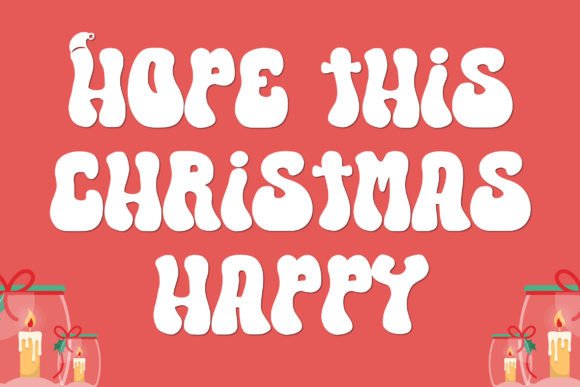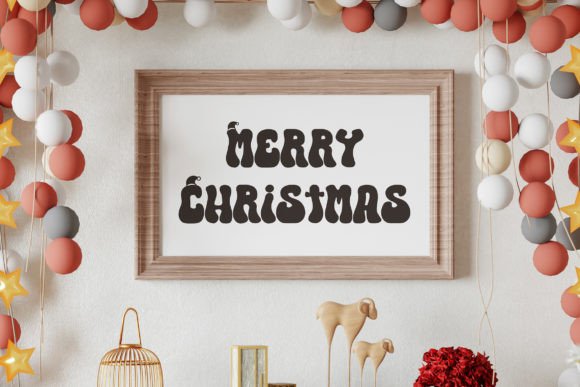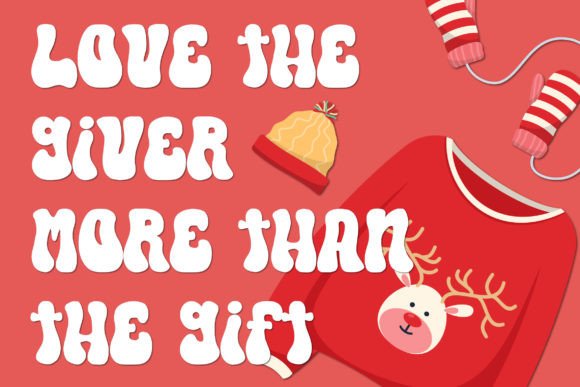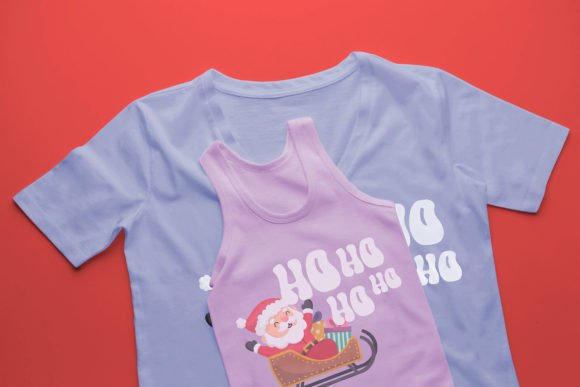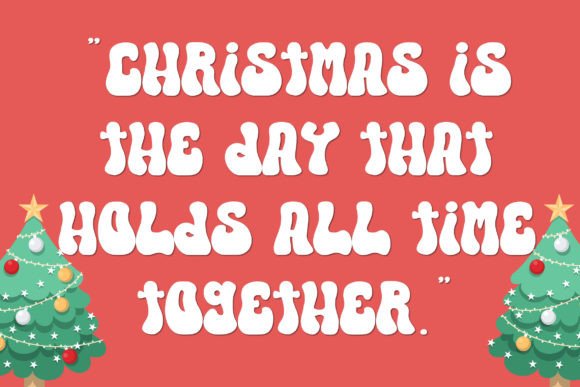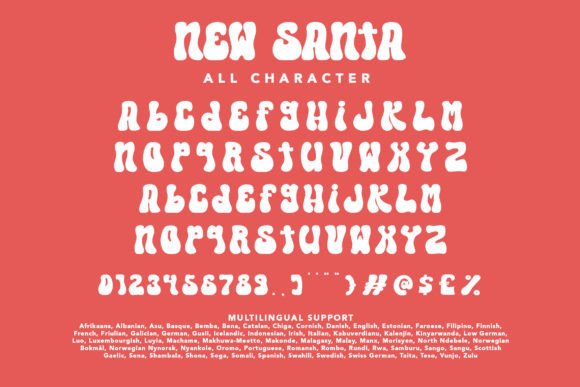
Introduction to New Santa Font Font
Fonts play a crucial role in design, and the New Santa Font font is a typeface that brings both character and versatility to any project. Whether you’re working on a branding project, a website, or a print design, the New Santa Font font offers a unique style that can elevate your work.
New Santa – Playful Christmas Font with distinctive handmade characters.
It is perfect for branding projects, logos, wedding designs, media posts, advertisements, product packaging, product designs, labels, photography, watermarks, invitations, stationery, and any project that needs a cool festive touch .
Key Features of New Santa Font Font
Why Choose New Santa Font Font?
The New Santa Font font is more than just a typeface – it’s a design tool that helps you communicate your message with style and clarity. Its unique character set and versatile design make it suitable for a wide range of applications, from elegant invitations to bold headlines.
With its carefully crafted letterforms and balanced proportions, the New Santa Font font ensures readability and visual appeal across all mediums.
What makes New Santa Font font special?
The New Santa Font font stands out with its unique design, exceptional readability, and versatility across various design applications.